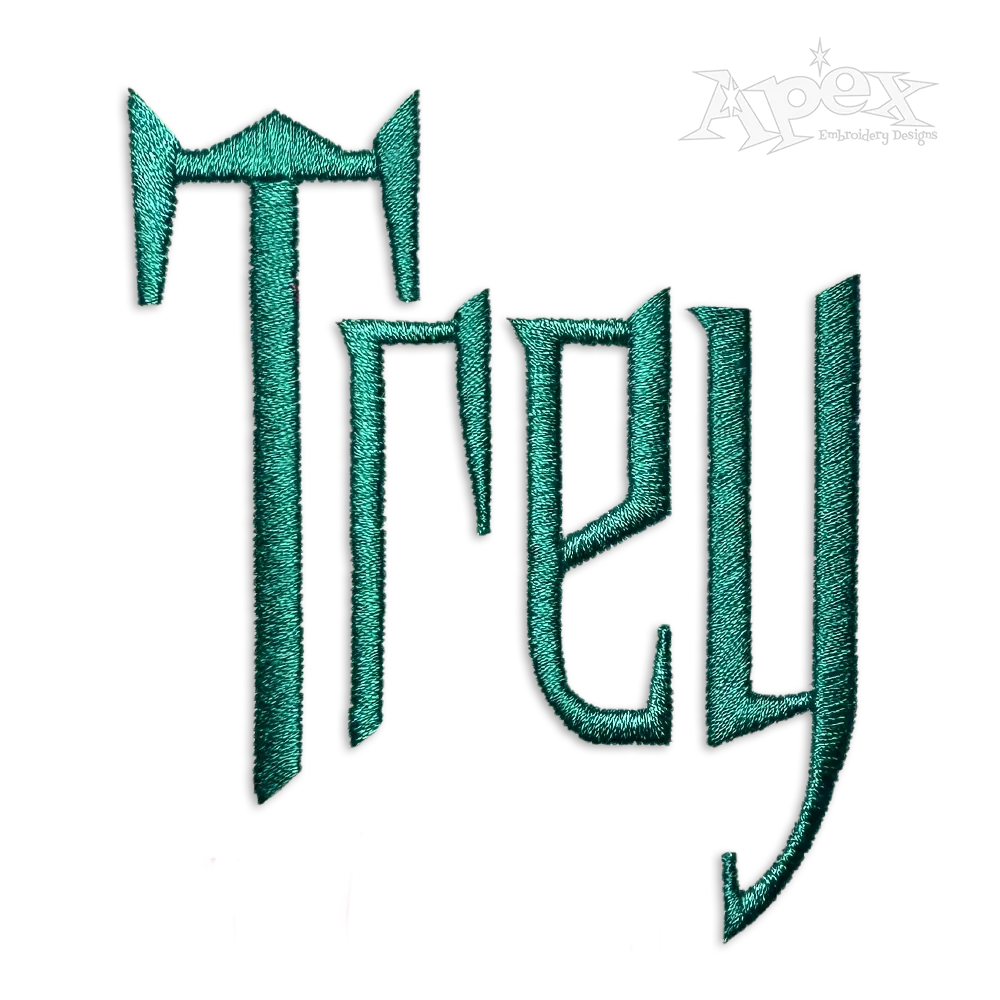
Halloween Spooky Bat Embroidery Font
Born from the shadows of twilight and the electric thrill of nocturnal folklore, the Halloween Spooky Bat Embroidery Font transforms bold heroic fantasy into stunning textile art. When drafting this expressive alphabet, our design studio looked to the sweeping silhouettes of bat wings unfurling across an autumn harvest moon. We merged gothic drama with sharp superhero-inspired geometries, creating an alphabet that feels playfully menacing and irresistibly bold. Every curve swoops with purpose, while the wingtip accents evoke iconic midnight vigilantes and haunted October evenings, giving your seasonal stitching projects unmatched personality and rich artisan presence.
Project Ideas for Halloween Spooky Bat Embroidery Font
This charismatic alphabet injects instant character into Halloween festivities, superhero celebrations, and gothic craft projects:
- Trick-or-Treat Heavy Canvas Totes: Stitch your little monster's initials or full name across durable canvas treat sacks for an elevated, personalized keepsake.
- Costume Capes & Superhero Loungewear: Embroider bold chest emblems or custom superhero numbers onto velour or fleece dress-up cloaks.
- Spooky Season Sweatshirts: Create boutique-style autumn pullovers featuring favorite Halloween phrases or bold collegiate-style monster monograms.
- Haunted Table Linens: Accent linen cocktail napkins and runner borders for a chic, moody Halloween dinner party vignette.
- Bespoke Gifting & Goodie Bags: Personalize velvet drawstring bags with numbered countdowns or names for festive party favors.
Because of the dramatic horizontal spread of the wing-inspired serifs, thoughtful hooping and placement will make each letter sing:
- Center Chest Placement: The natural symmetry of the batwing elements shines brightest when placed high across the sternum on crewnecks, hoodies, or pajamas.
- Corner Diagonal Accents: Angle a single initial across the lower corner of a placemat, napkin, or pocket opening to let the scalloped wingtips frame the edge.
- Stacked Monograms on Tote Bags: Center a prominent 4-inch initial flanked by 2-inch numerals to create an authentic gothic emblem appearance.
- Cape & Jacket Backs: Utilize the 4-inch scale across the shoulder yoke to create an eye-catching focal point that moves gracefully with the wearer.
Halloween Spooky Bat Embroidery Font Craft & Letterform Details
Digitizing sharp, wing-like serifs requires an exacting master touch. Rather than relying on simple stroke scaling, our artisans engineered specialized angle paths for every swooping arch and pointed wingtip. The transitions from broad satin body columns to needle-sharp terminals feature calculated push-and-pull compensation, guaranteeing that the crisp edges maintain their silhouette without puckering or distorting the surrounding fabric.
Underneath the surface, intelligent foundational underlay stitches provide resilient structure, giving the lustrous top satins a pillowy, semi-dimensional lift. The inclination of each stitch line has been calculated to catch ambient light, accentuating the natural curvature of the batwings as your thread moves across the fabric. The result is a stitch-out that runs smoothly from start to finish, producing clean, velvety embroidery that commands attention wherever the night takes you.